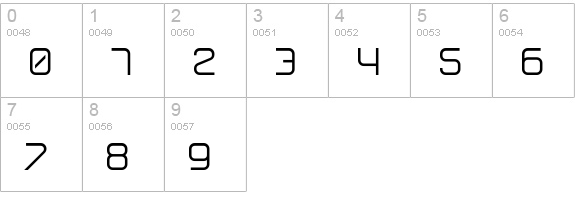
Break font is a modern and stylish typeface that perfectly blends elegance with a touch of edginess. Its sharp lines and bold strokes give any design a contemporary and eye-catching look. With a versatile character set, Break font is ideal for a wide range of design projects, from posters to branding to social media graphics. The best part? Break font is completely free to download at FontsMarket.com. This means you can easily add this unique and captivating font to your collection without any cost. Whether you're a designer looking to experiment with new typography or a business owner wanting to elevate your brand's visual identity, Break font is a fantastic choice that won't break the bank. Don't miss out on this fantastic opportunity to enhance your designs with the striking Break font. Download it for free today at FontsMarket.com and start creating stunning visuals that stand out from the crowd.